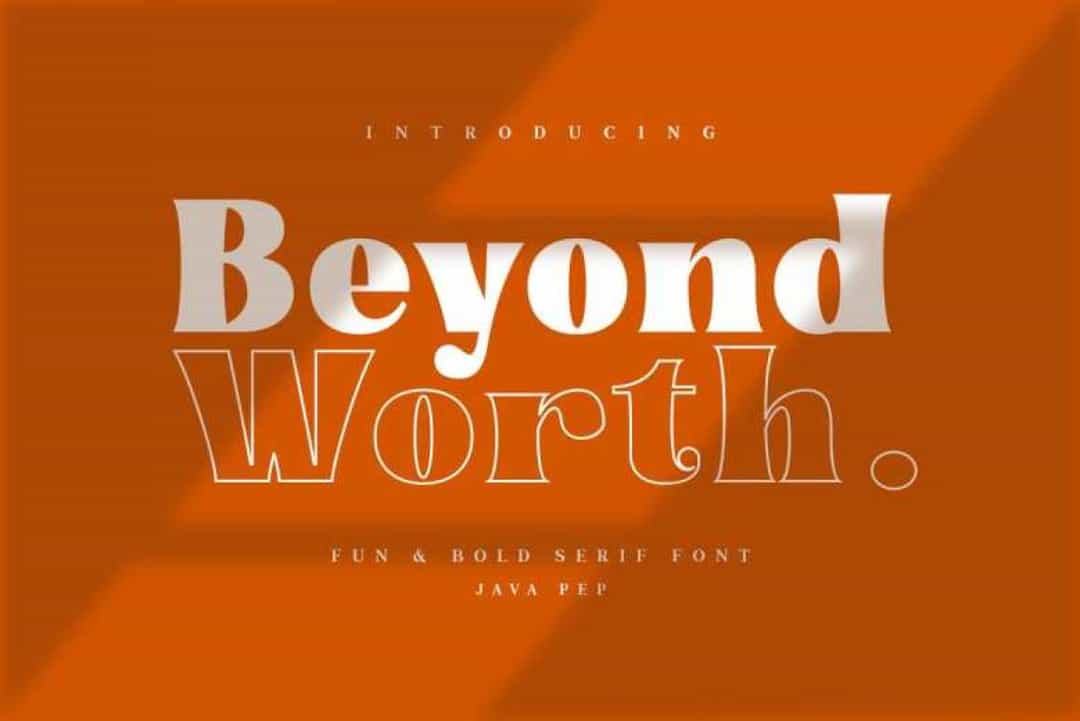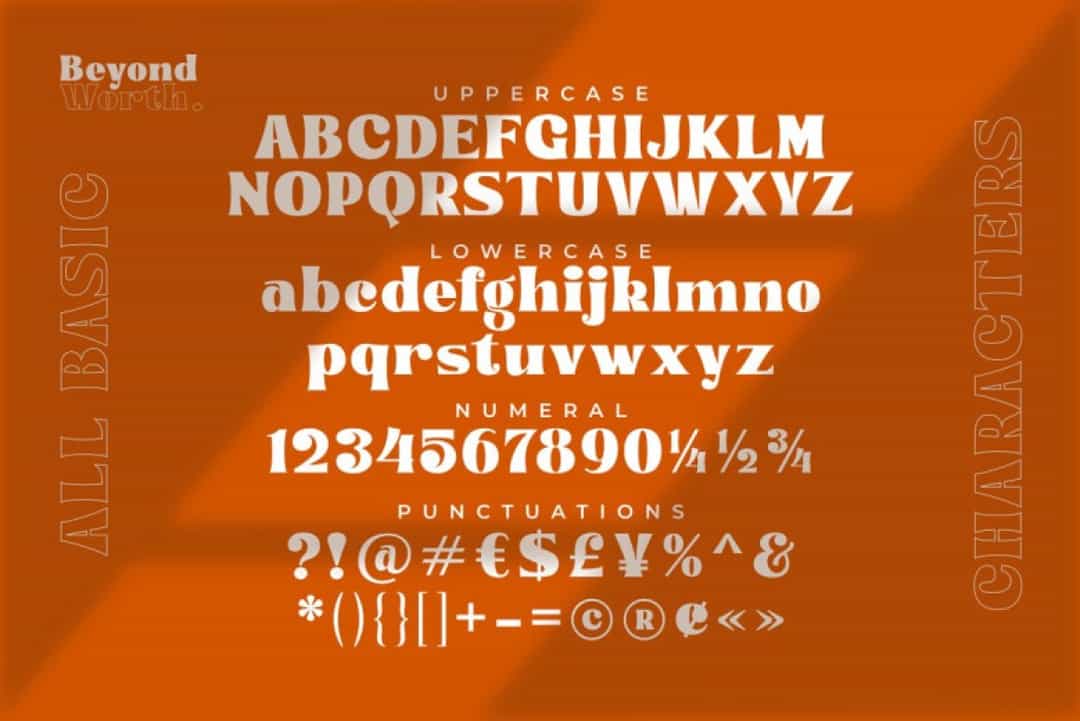
Beyond Worth is an exciting and bold font designed to make any project more impressive and sophisticated. As it features both regular and outline styles, Beyond Worth makes an ideal font choice for mixing and matching design projects involving headlines, titles, logotypes, branding or bold fonts designed to make an impressionful statement and feel exceptional.